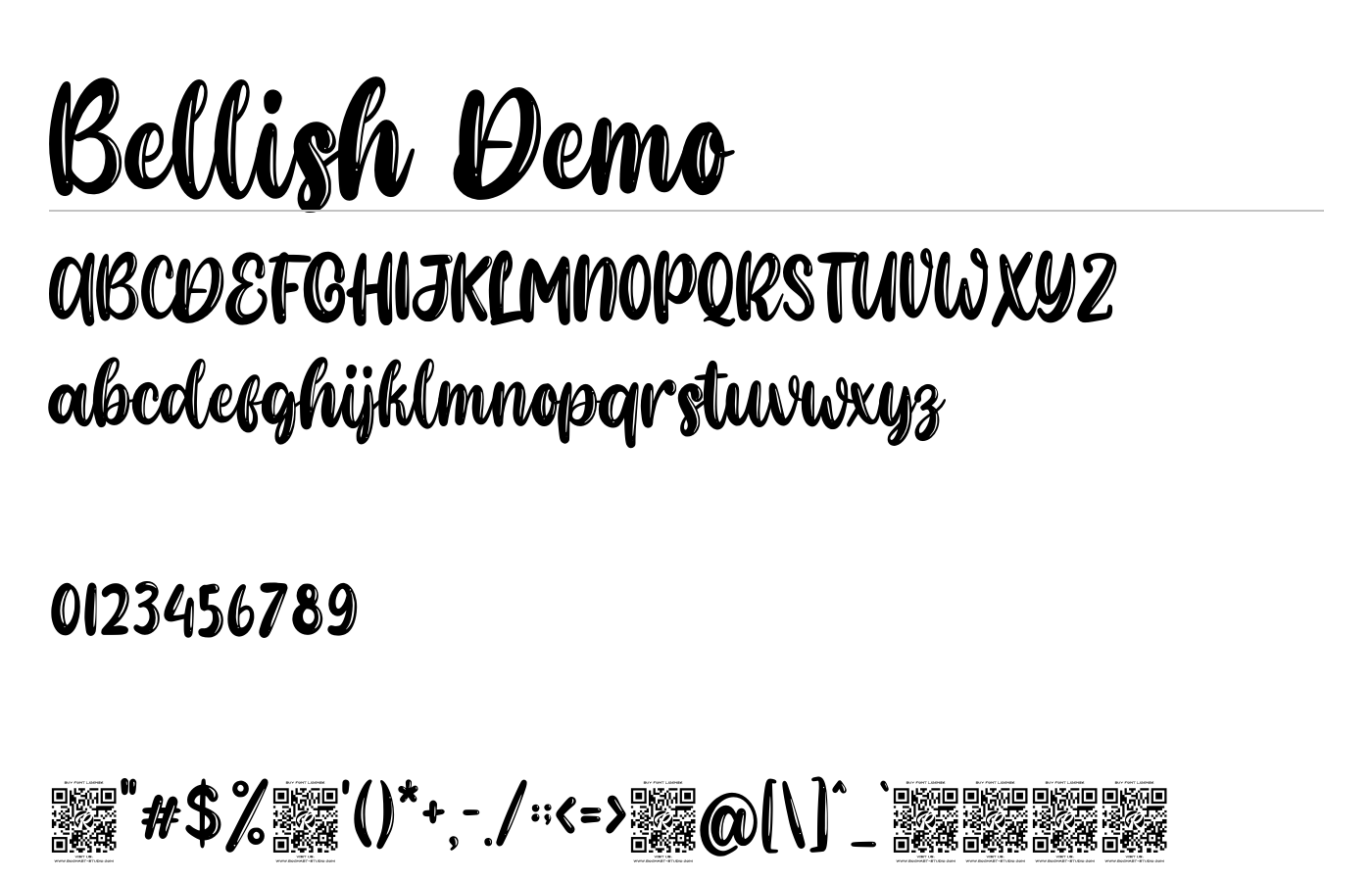
Bellish is a bold, playful script font with a hand-drawn feel that combines thick strokes and smooth curves, creating an inviting and lively appearance. Its rounded letterforms and balanced x-height make it perfect for fun and creative branding, logos, and casual headlines where a personal and cheerful touch is desired. This font works especially well in designs aiming for a friendly, approachable vibe while maintaining clear readability.
Bellish Font
About Bellish Font